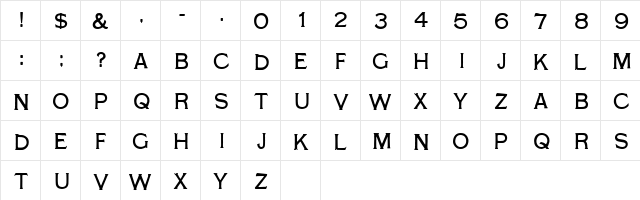
Typo Gothic HPLHS
Design Context for Typo Gothic Typeface
Typo Gothic takes a clean, functional approach — its unadorned letterforms prioritise legibility and work reliably across screen and print environments.
Font Pairing: Works well alongside a characterful serif or display font that can carry the expressive load while Typo Gothic handles the functional copy.
Pro Tip: Use Typo Gothic for UI labels, navigation, and short-form body copy where clean legibility is the priority.